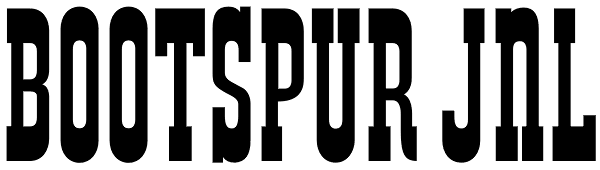
Bootspur JNL
Art Deco and Western styles fuse into one design in Bootspur JNL. A rounded A,M,N and W along with the Art Deco curvature found in the K,R,X and Y set Bootspur JNL apart from many of the other condensed Western fonts currently available.